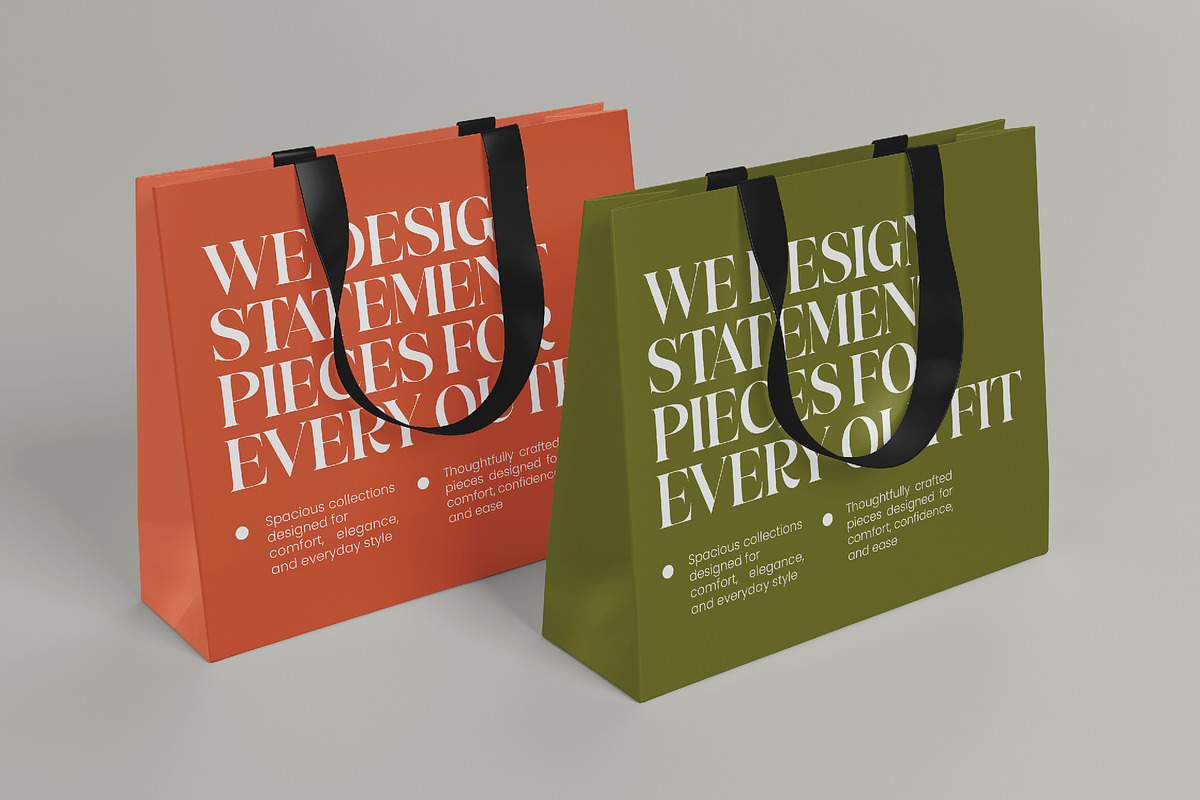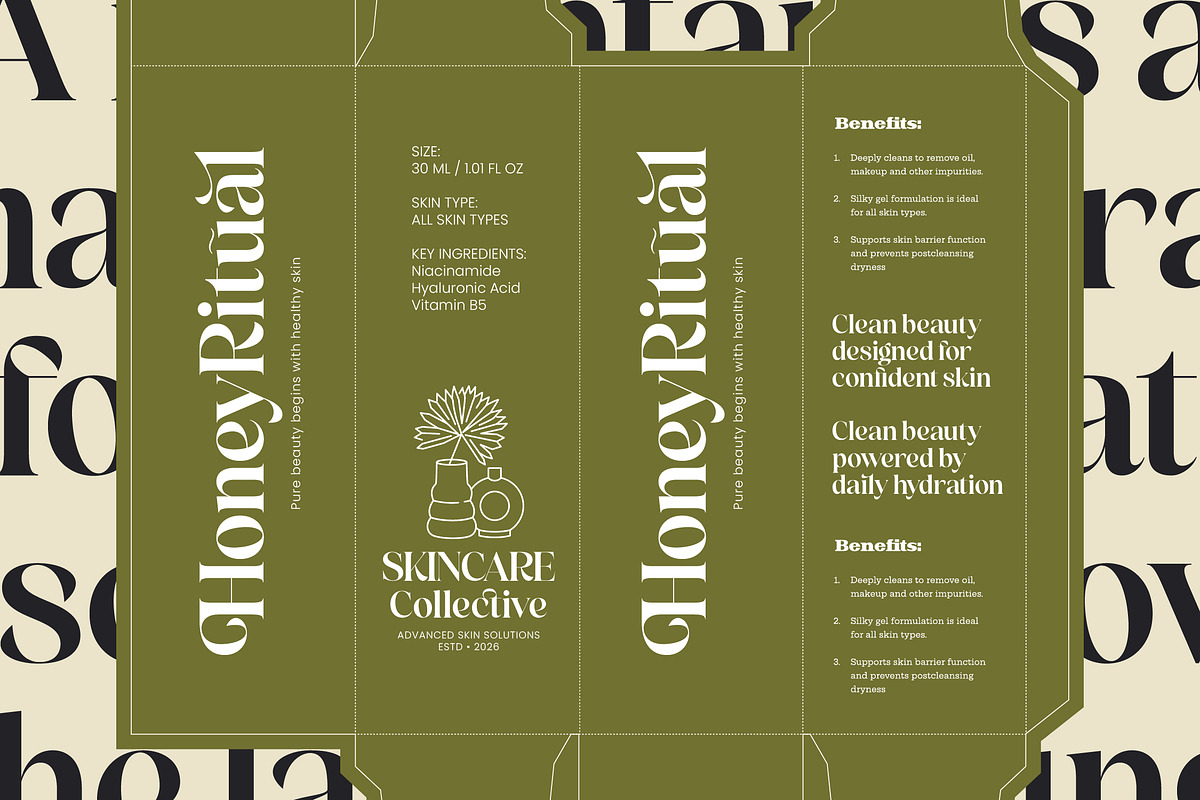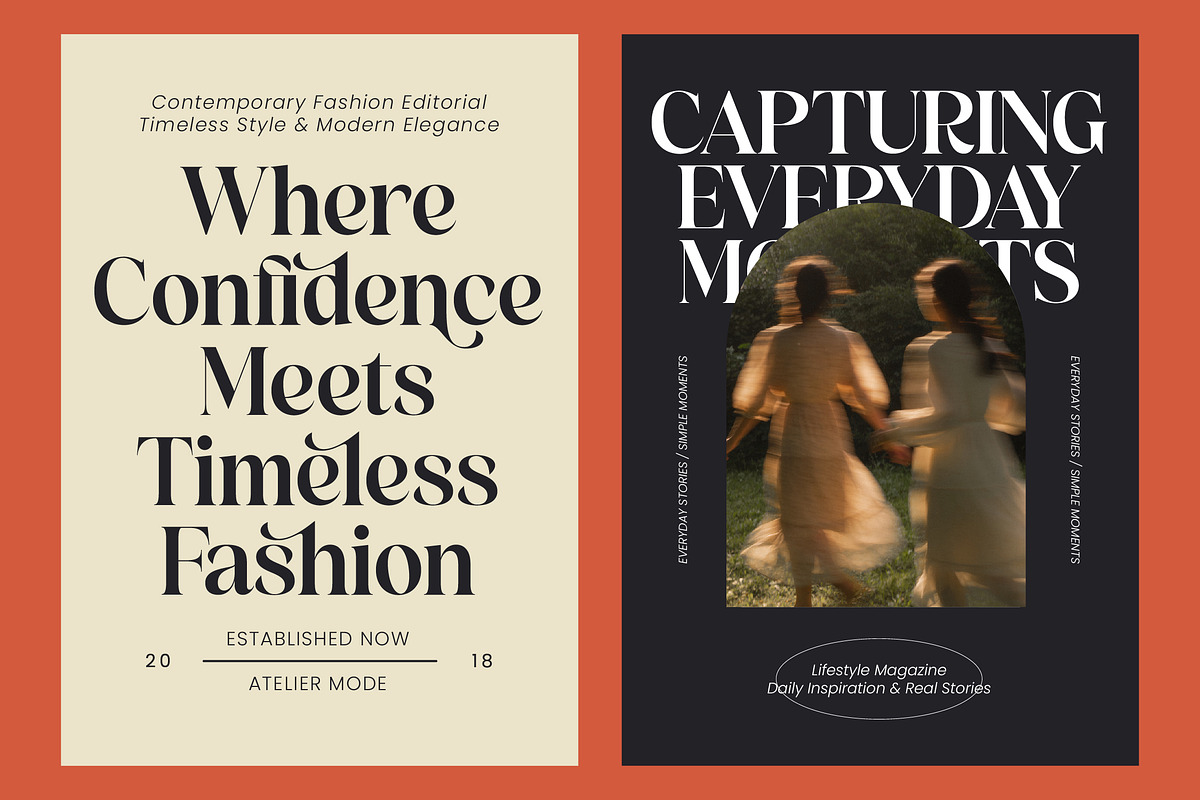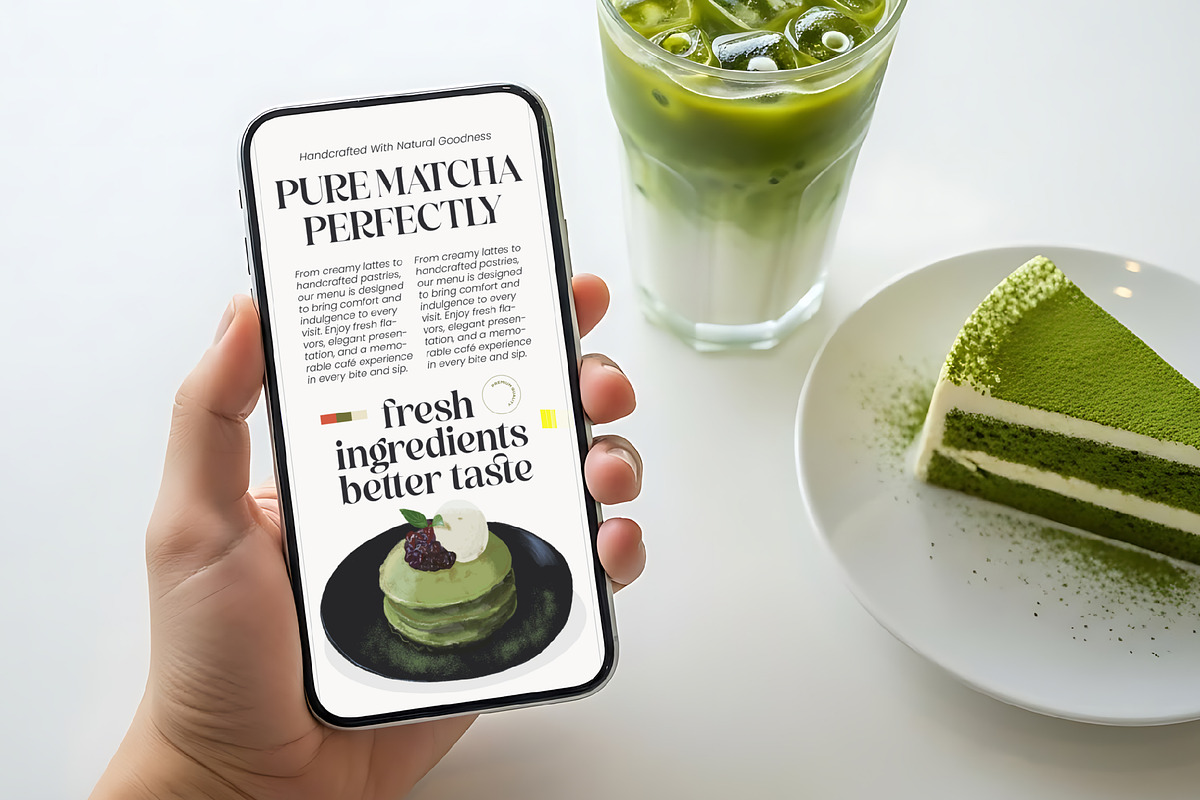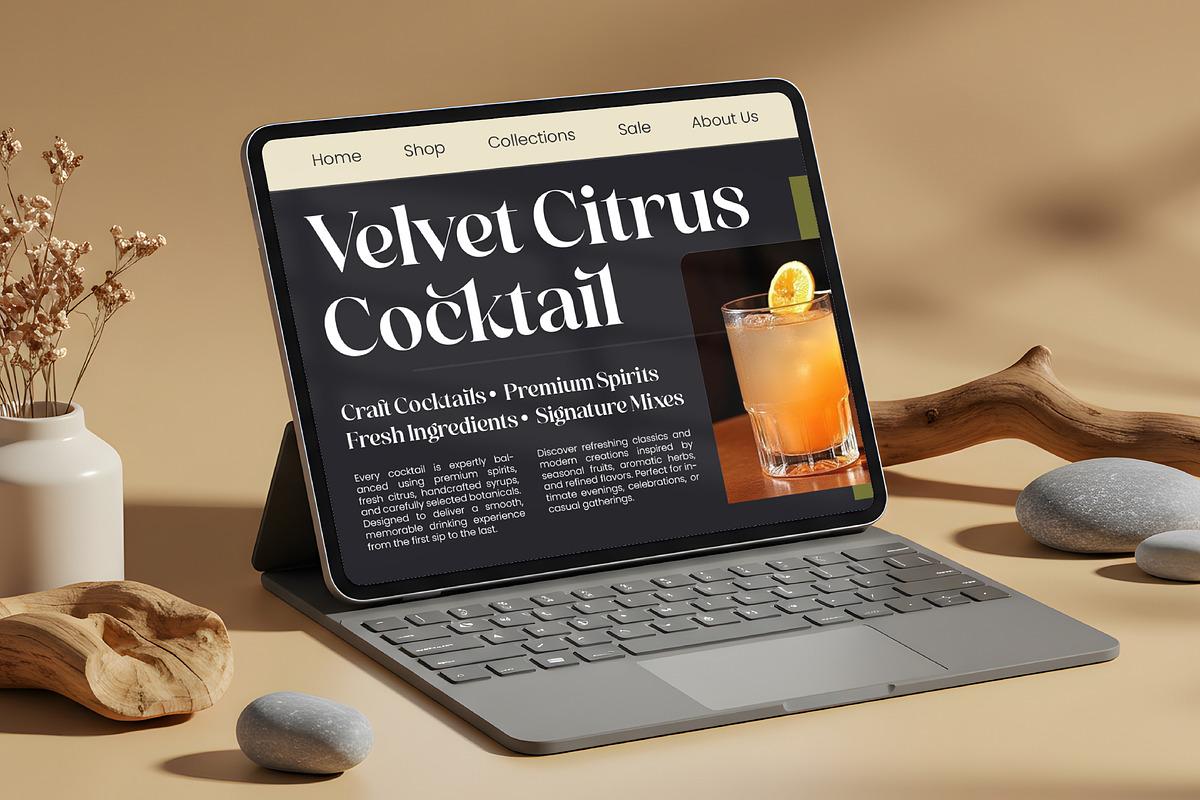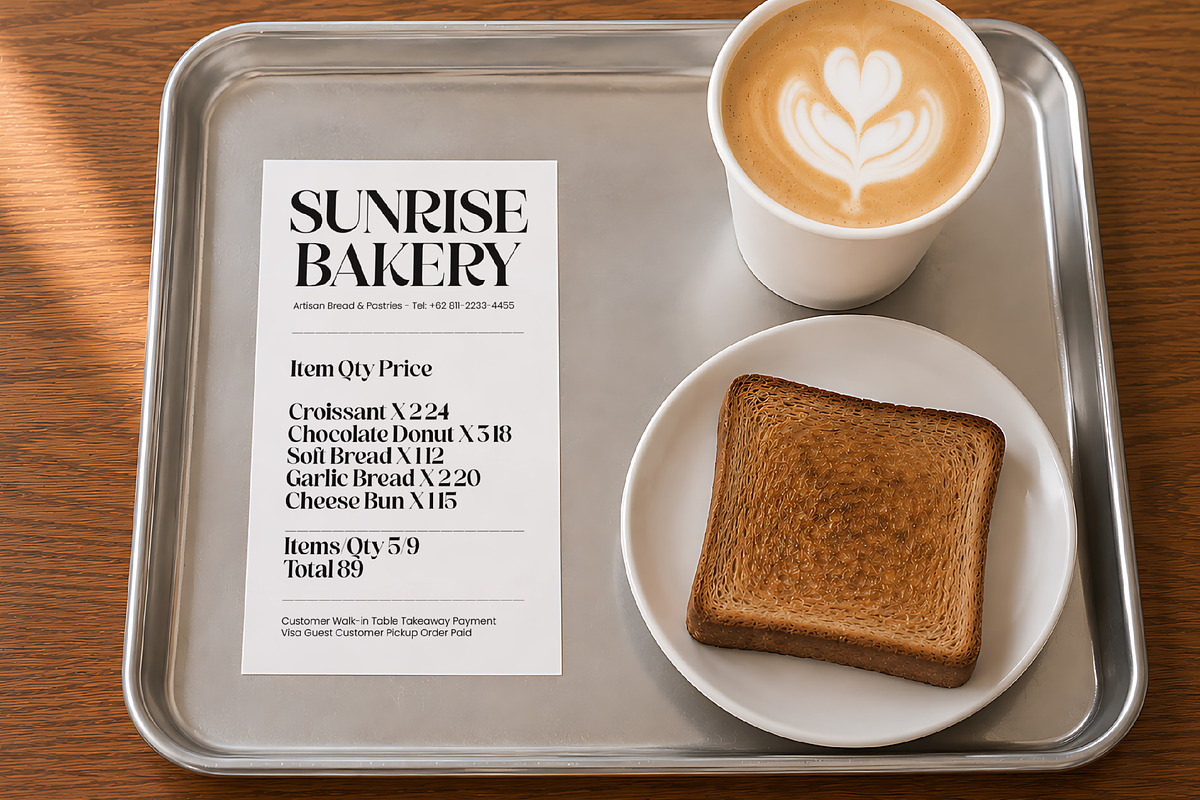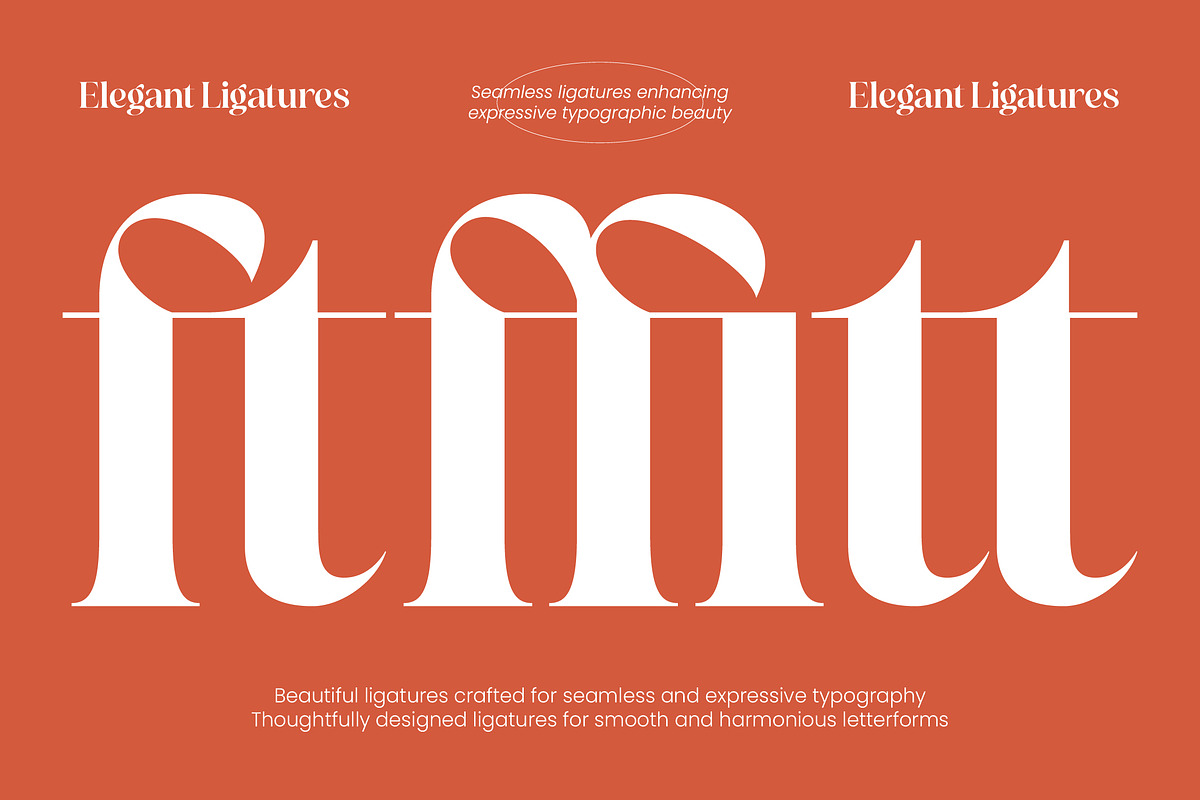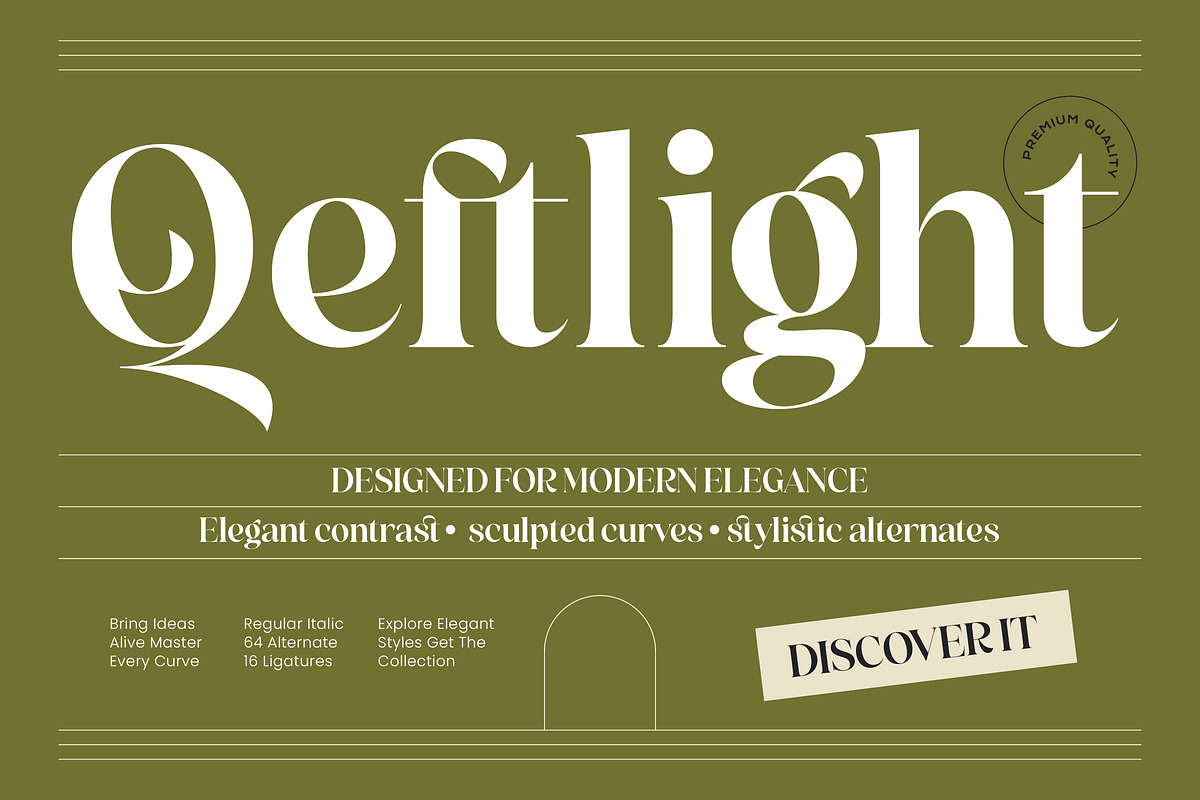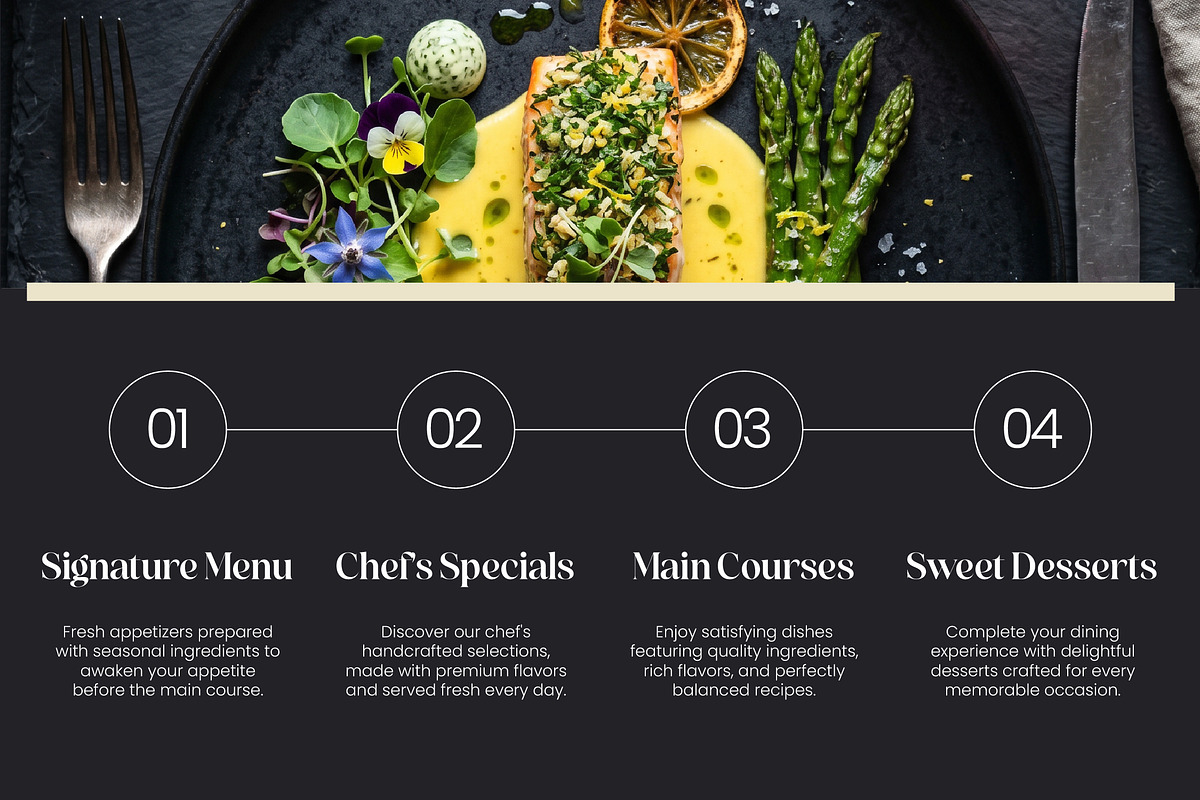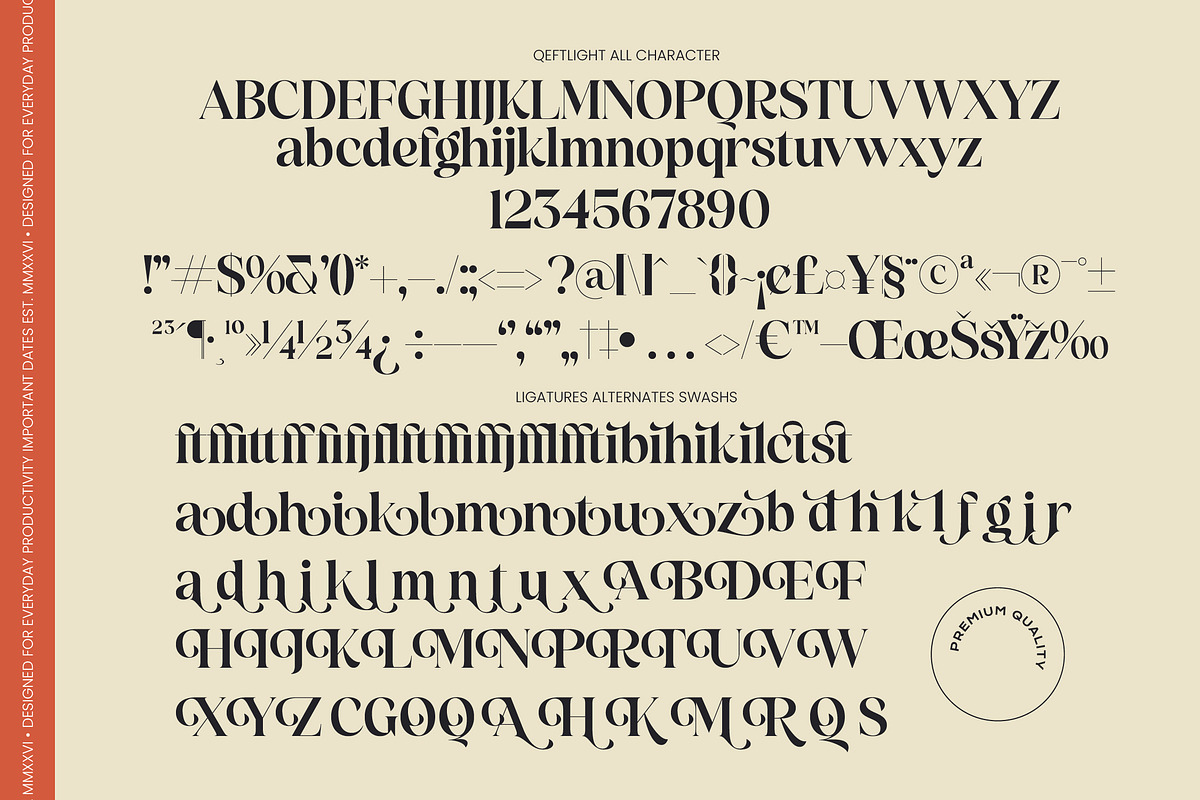
Qeftlight Elegant Contrast Serif
**Qeftlight - Elegant Contrast Serif , **Redefine the standards of sophisticated typography with Qeftlight - Elegant Contrast Serif, a typeface that embodies modern elegance and artistic refinement. This high-contrast serif is meticulously crafted to balance sculpted curves with sharp, precise edges, creating a sophisticated aesthetic that commands attention. Whether used for headlines or display purposes, its silhouette offers a distinctive visual rhythm that bridges the gap between classic heritage and contemporary minimalism.
Elevate your creative toolkit with a font family designed for professional versatility and typographic precision. Featuring a robust selection of stylistic alternates and unique ligatures, this typeface allows designers to customize letterforms for a truly bespoke look. With its extensive multilingual support, Qeftlight - Elegant Contrast Serif adapts seamlessly across global markets, making it incredibly versatile for international projects and diverse creative campaigns.
Achieve unparalleled impact in luxury branding and editorial design by utilizing the specific strengths of this typeface. It is the perfect choice for high-end fashion labels, premium packaging, lifestyle magazines, and upscale visual identities. Its inherent grace makes Qeftlight - Elegant Contrast Serif ideal for any project requiring a touch of exclusivity and timeless charm, ensuring your message is delivered with unmatched clarity and style.